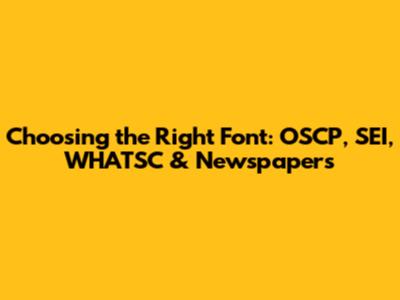
- Serif Fonts: Known for their traditional appearance and readability in print.
- Sans-Serif Fonts: Offer a modern, clean look suitable for digital displays.
- Monospace Fonts: Essential for coding and technical documentation due to their consistent character width.
Choosing the right font is super important, whether you're diving into cybersecurity with OSCP, dealing with software engineering using SEI methodologies, working on WHATSC projects, or even just reading your daily newspaper. The font you pick can seriously affect how easy it is to read and understand the text, and how professional it looks. Let's break down what makes a good font choice in each of these areas, making sure your message is clear and impactful. When selecting fonts, consider legibility, readability, and the overall tone you want to convey. For instance, a clean and modern sans-serif font might be perfect for a cybersecurity report, while a classic serif font could lend authority to a newspaper article. Understanding the nuances of typography will help you make informed decisions and ensure your content resonates with your target audience.
Understanding Font Basics
Before we get into specific use cases, let's cover some font basics. Fonts usually fall into two main types: serif and sans-serif. Serif fonts have little decorative strokes at the ends of letters, like Times New Roman or Garamond. These are often seen as more traditional and are great for long blocks of text in print because they help guide the eye. Sans-serif fonts, on the other hand, don't have these strokes, like Arial or Helvetica. They look cleaner and more modern, making them good for digital displays and headings. Also, consider monospace fonts, where each character takes up the same amount of horizontal space. These are commonly used in coding and technical documentation.
Legibility vs. Readability
It's important to know the difference between legibility and readability. Legibility refers to how easy it is to distinguish individual letters. A font can have fancy, unique letters but still be hard to read if the letters look too similar. Readability is about how comfortable it is to read a whole block of text. Factors like line spacing, font size, and contrast affect readability. For example, a font might be very legible on its own, but if the line spacing is too tight, it can make reading a paragraph a real pain. Selecting the right font involves balancing both legibility and readability to ensure optimal user experience. Experiment with different font pairings and layouts to find what works best for your specific project.
Font Choices for OSCP (Offensive Security Certified Professional)
For OSCP, which is all about cybersecurity and penetration testing, you want fonts that are clear and easy to read in technical reports and documentation. Think about it: you're writing up detailed findings, code snippets, and explanations of vulnerabilities. You don't want a font that's going to strain the reader's eyes or make it hard to understand complex information. A good choice here is a clean sans-serif font like Consolas or Source Code Pro. These fonts are monospace, meaning each character takes up the same amount of space, which is super important for code. When you're presenting code, you want to make sure everything lines up perfectly so it's easy to spot errors and understand the logic. Using a monospace font ensures that indentation and alignment are maintained, reducing the risk of misinterpretation.
Why Monospace Matters
Monospace fonts are crucial in OSCP because they enhance the readability of code and terminal outputs. Imagine trying to debug code where the characters are not uniformly spaced; it would be a nightmare! Monospace fonts ensure that each character, whether it's 'i' or 'W', occupies the same width, making it easier to visually scan and identify errors. This is particularly important when reviewing logs or analyzing packet captures, where even a slight misalignment can lead to significant misunderstandings. Also, consider using syntax highlighting to further improve readability. Different colors can represent different elements of the code, making it easier to distinguish between variables, functions, and keywords. This combination of monospace fonts and syntax highlighting can significantly reduce eye strain and improve the overall efficiency of your work.
Font Choices for SEI (Software Engineering Institute)
When it comes to the Software Engineering Institute (SEI), the focus is on rigorous methodologies and precise documentation. You need fonts that convey professionalism and clarity. Reports, presentations, and technical papers need to be easy to read and understand. A good choice for SEI-related documents would be a font like Arial or Calibri. These sans-serif fonts are clean, modern, and widely recognized. Using a well-established font ensures that your documents will be readable on virtually any system, without the risk of compatibility issues. Furthermore, these fonts are designed to be legible even in smaller sizes, which is essential for detailed reports and presentations.
Ensuring Clarity and Professionalism
In the context of SEI, maintaining clarity and professionalism is paramount. The font you choose should reflect the seriousness and precision of the work being presented. While creative or decorative fonts might be tempting, they can detract from the message and make the document appear less credible. Stick to fonts that are known for their readability and neutrality. Also, pay attention to font sizes and line spacing. A font size that is too small can strain the eyes, while overly generous line spacing can make the document seem disjointed. Aim for a balance that allows readers to comfortably navigate the text without feeling overwhelmed. Consider using headings and subheadings to break up large blocks of text and guide the reader through the document's structure. This will not only improve readability but also enhance the overall organization and flow of your content.
Font Choices for WHATSC (Whatcom Intergenerational High School)
For WHATSC, which is likely related to an educational environment, you want fonts that are friendly, approachable, and easy for students of all ages to read. The goal is to create a welcoming and inclusive atmosphere through your written materials. A good choice here might be something like Open Sans or Lato. These fonts are sans-serif but have a slightly softer, more rounded appearance than Arial or Helvetica. Using these fonts can make your materials feel less formal and more inviting. Additionally, consider the age range of your students. Younger children might benefit from larger font sizes and simpler letterforms, while older students might appreciate a more sophisticated and refined look.
Creating an Inclusive Reading Experience
In an educational setting like WHATSC, creating an inclusive reading experience is essential. This means choosing fonts that are accessible to students with visual impairments or learning disabilities. Avoid fonts that are overly stylized or decorative, as these can be difficult to decipher. Opt for fonts with clear, distinct letterforms and generous spacing. Also, consider providing alternative formats for students who require them, such as large print or audio versions of your materials. Color contrast is another important factor to consider. Ensure that there is sufficient contrast between the text and the background to make the text easy to read. Using tools to check the color contrast ratio can help ensure that your materials meet accessibility standards. By taking these steps, you can create a learning environment that is inclusive and welcoming to all students.